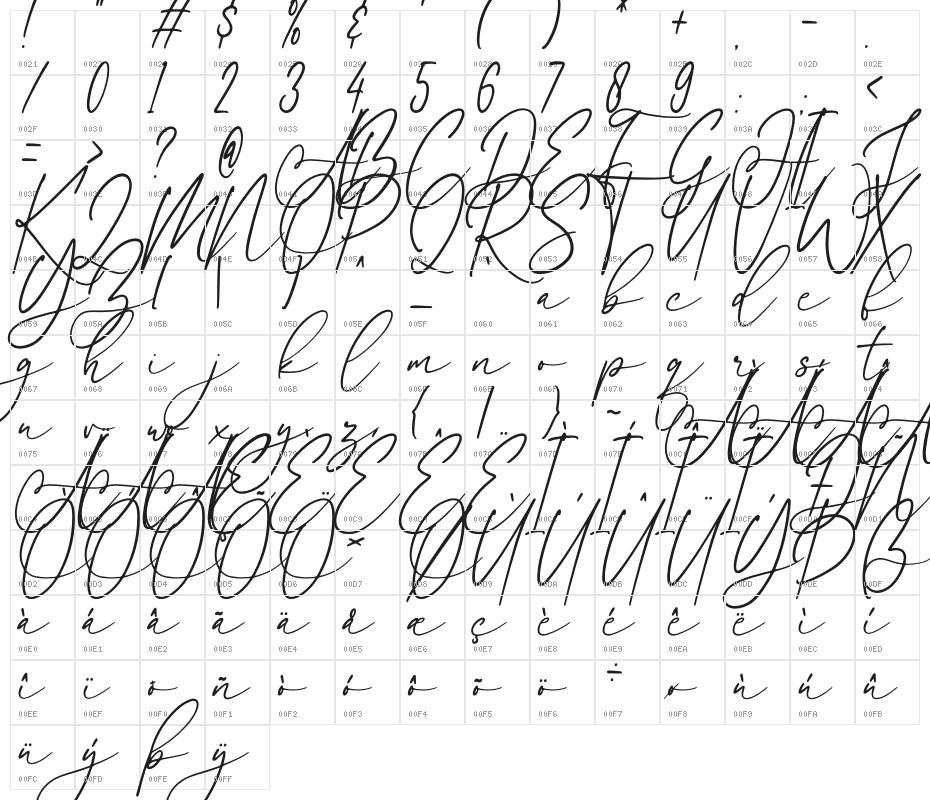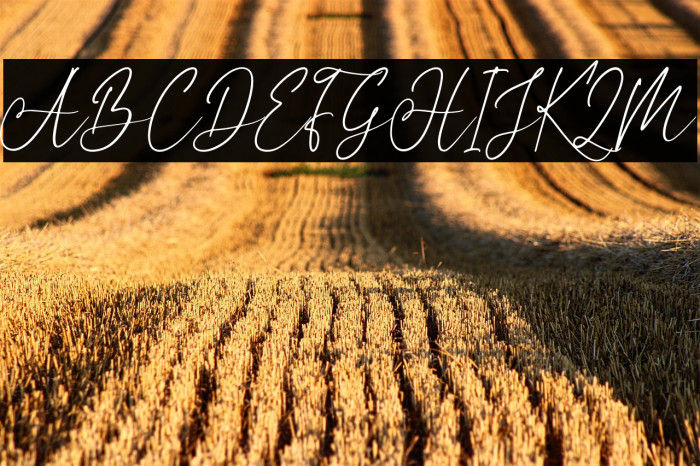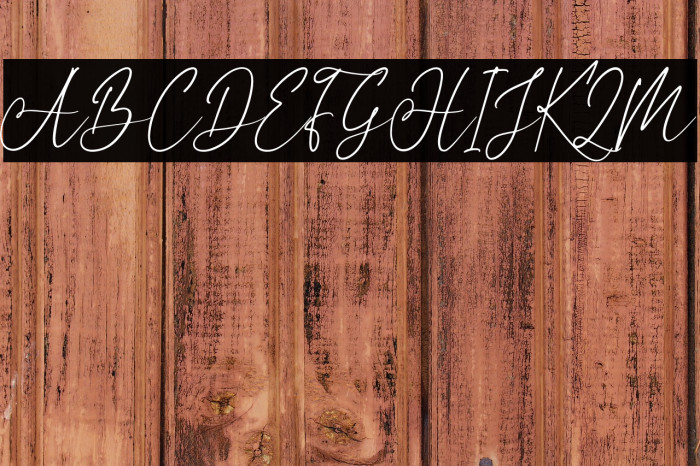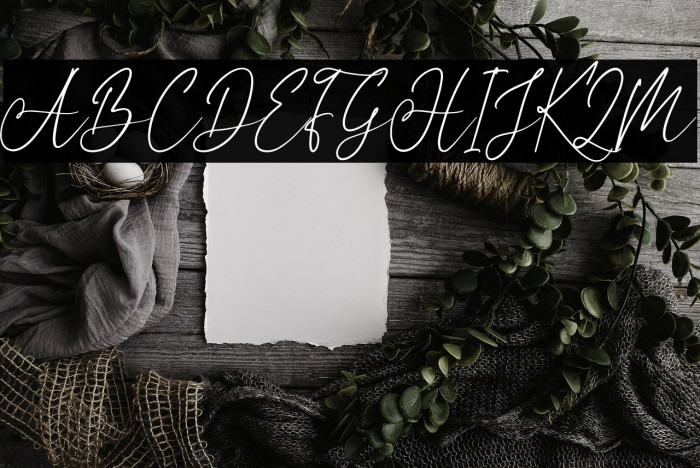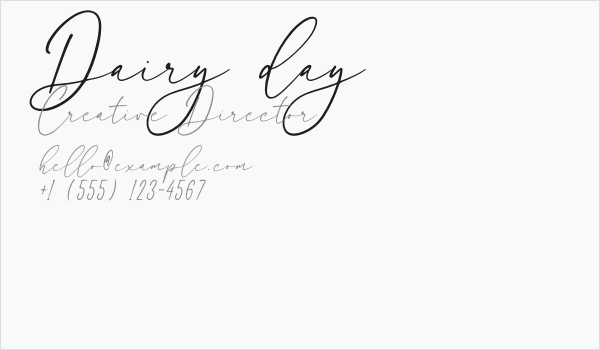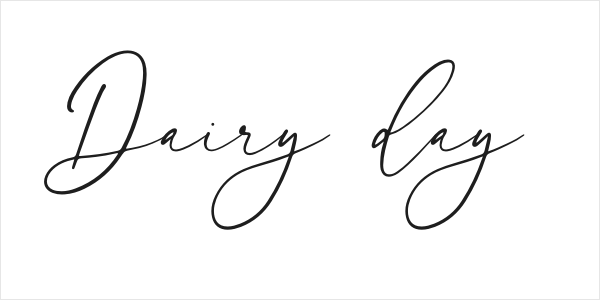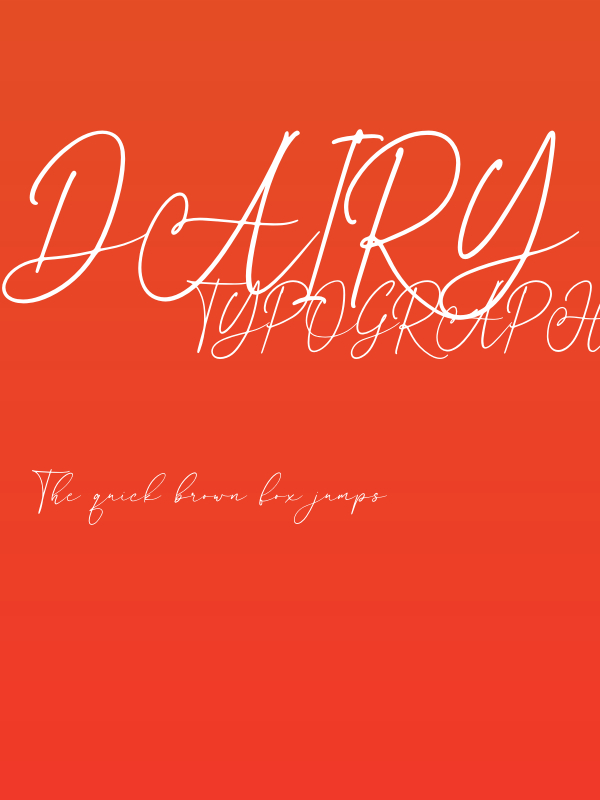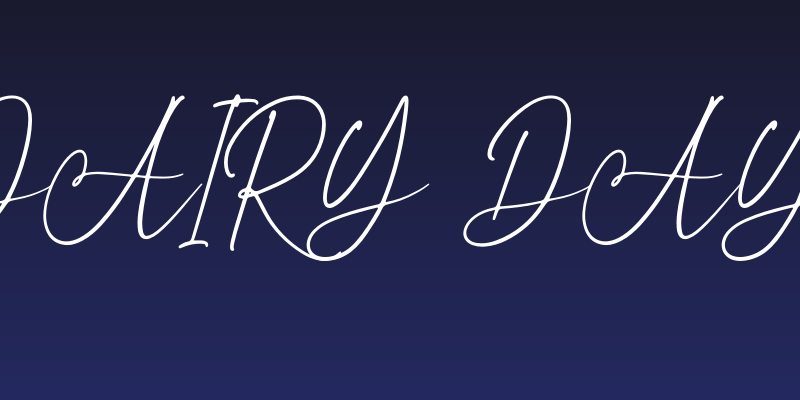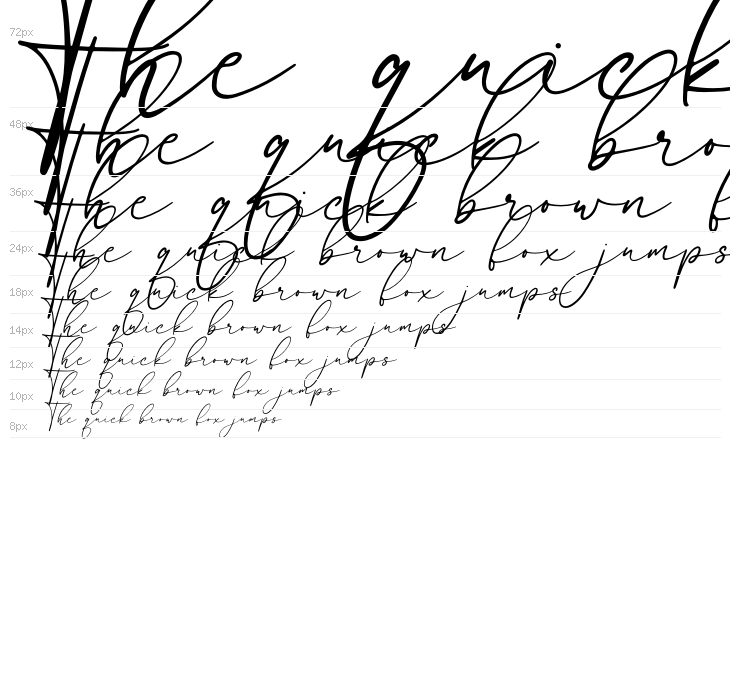
Dairy day Font
Dairy day Description
A flowing, cursive script font with elegant, connected letterforms and high contrast between thick and thin strokes. The characters are elongated and have a handwritten, calligraphic feel, with expressive ascenders and descenders.
| Overall Style | Decorative, Handwritten, Elegant |
| Use Case | Logos, Headlines, Invitations, Decorative text |
| Proposed Projects | Wedding invitations, personal branding, greeting cards, quotes, feminine product packaging. |